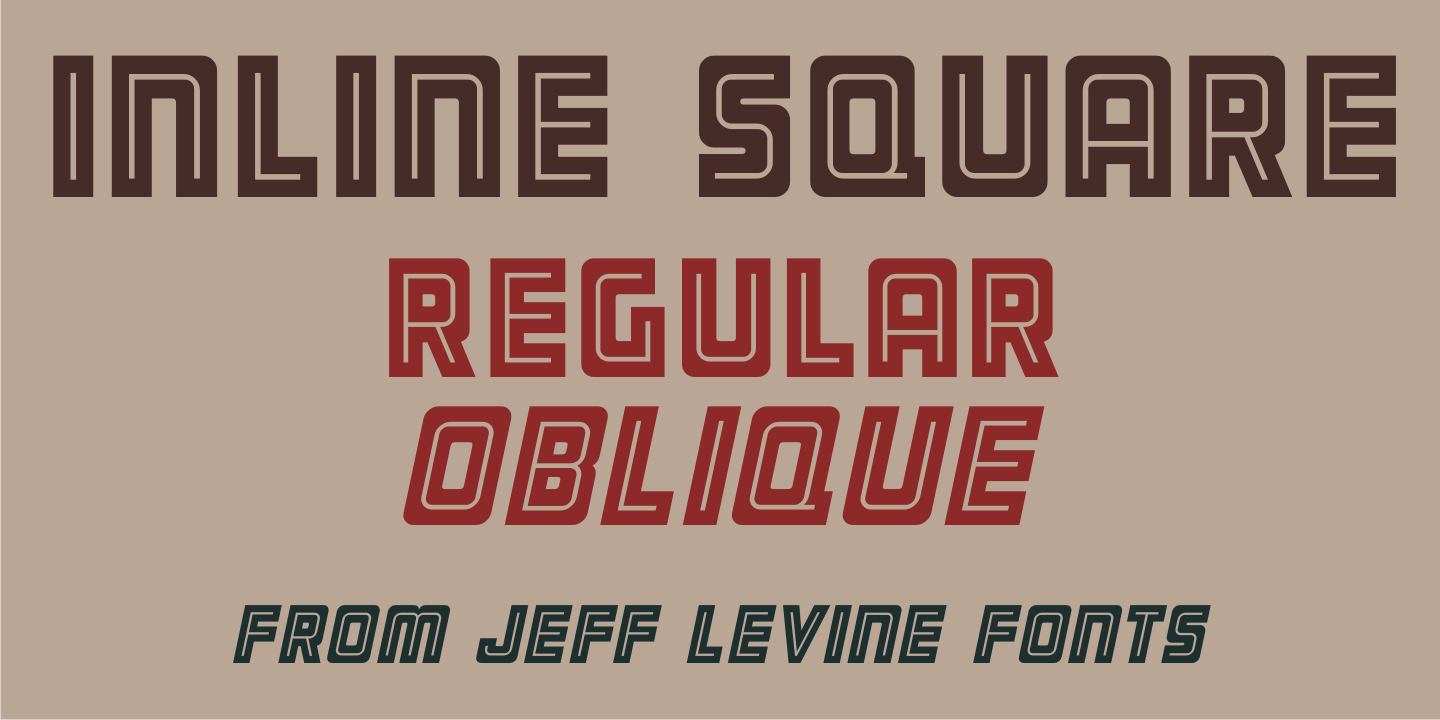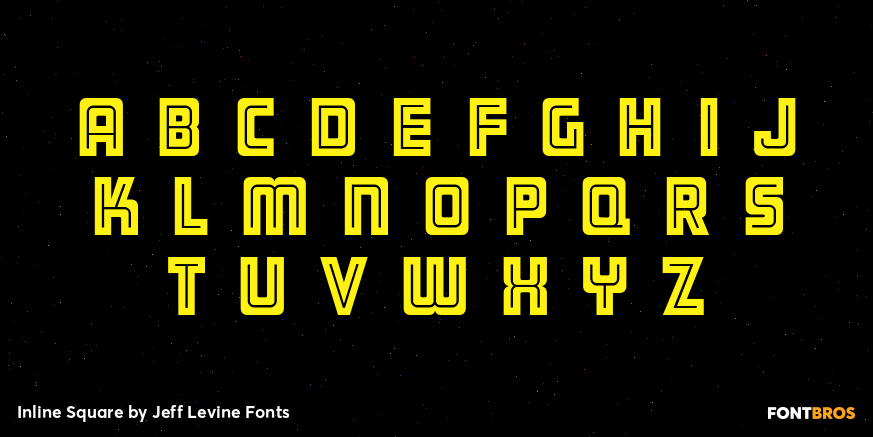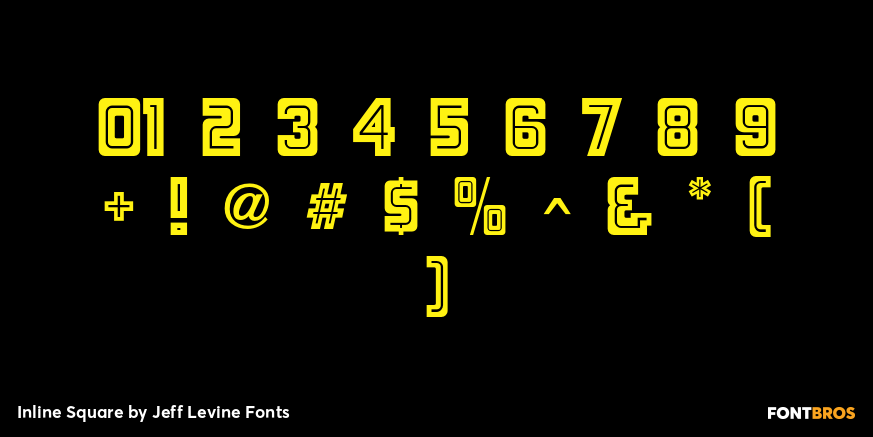
Inline Square
Inline Square JNL is modeled from the hand lettered title found on the 1935 sheet music for 'Cielito Lindo (Beautiful Heaven)”, and is available in both regular and oblique versions.
Inline Square JNL Oblique
Inline Square JNL Regular
Inline Square by Jeff Levine Fonts